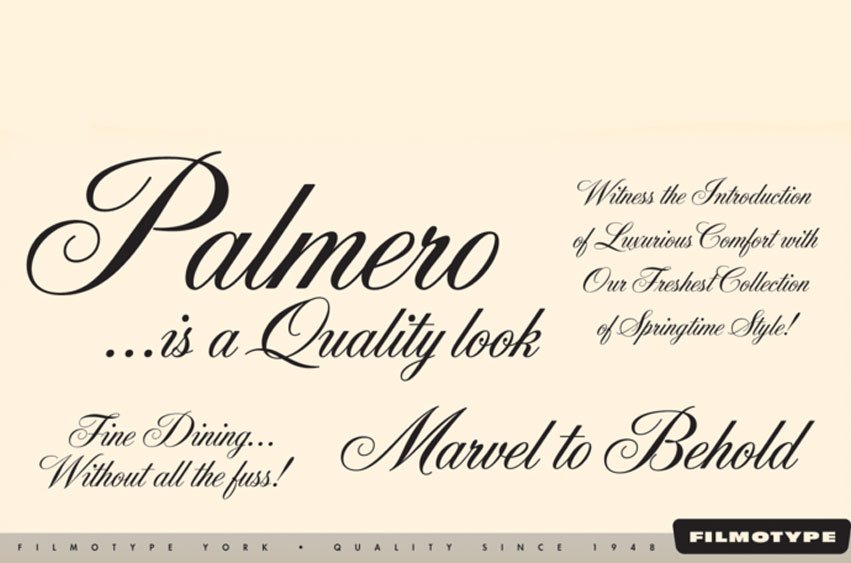
Filmotype York Font
Filmotype York Font is calligraphic, highly contrasting style was first introduced by Filmotype as York script in the late 50’s being one of their first formal scripts; the style began with this copperplate in 1957.
Being a serious, and traditional font, Filmotype York fits in perfectly with formal wedding invitations as well as elegant occasions because of its good weight that is well suited for text at smaller point sizes.